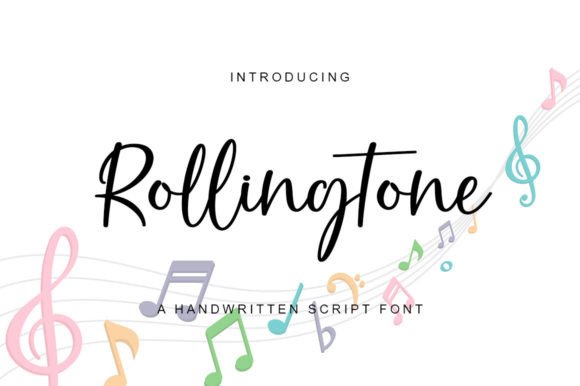
Behold Rollingtone, the Quintessential Script Font That Will Infuse Your Creations with Unparalleled Charm and Elegance
In the realm of typography, Rollingtone stands as a shining beacon of simplicity and sophistication, a script font meticulously crafted to evoke a sense of effortless charm and elegance. Its graceful curves and delicate strokes possess an inherent allure that will elevate your projects to new heights of visual appeal.
Whether you're a seasoned designer seeking to add a touch of whimsy to your latest masterpiece or a budding entrepreneur seeking to leave an unforgettable impression on your clients, Rollingtone is the perfect font for you. Immerse yourself in its captivating beauty and let your creativity soar as you witness the transformative power of this remarkable font.
Rollingtone, a Creation of Wahyu Studio, is More Than Just a Font; It's an Experience
Wahyu Studio, renowned for their unwavering dedication to excellence, has poured their heart and soul into creating Rollingtone, a font that transcends the boundaries of mere aesthetics. It's an experience that will awaken your senses and ignite your imagination, leaving you spellbound by its undeniable charm.
As you glide your cursor across the keyboard, the letters will seem to dance before your eyes, each character imbued with a unique personality that captivates and enchants. Rollingtone is not just a font; it's a symphony of flowing lines and graceful curves, a masterpiece that will transform your words into works of art.
Discover the Endless Possibilities with Rollingtone, the Versatile Font for Every Occasion
With Rollingtone at your disposal, the possibilities are limitless. Whether you're designing eye-catching headlines that demand attention, crafting heartfelt greeting cards that convey your deepest emotions, or creating personalized logos that exude professionalism, this versatile font has you covered.
Step into a world where creativity knows no bounds, where your imagination reigns supreme. Let Rollingtone be your constant companion as you embark on a journey of self-expression, transforming ordinary words into extraordinary statements that resonate with your audience and leave a lasting impression.
Unleash the Power of Simplicity with Rollingtone, the Font That Adds a Touch of Grace to Your Digital Signature
In the realm of professional communication, first impressions matter. As the digital landscape continues to expand, your email signature serves as a vital touchpoint, a reflection of your personal brand and the values you hold dear. With Rollingtone, craft an email signature that exudes confidence and sophistication, leaving a lasting impression on every recipient.
Imagine your signature, penned in the elegant strokes of Rollingtone, gracing the bottom of your emails, a testament to your attention to detail and impeccable taste. It's a subtle yet powerful statement that speaks volumes about your professionalism and dedication to excellence. Experience the transformative power of Rollingtone and watch as your email signature evolves into a thing of beauty, a reflection of your true essence.